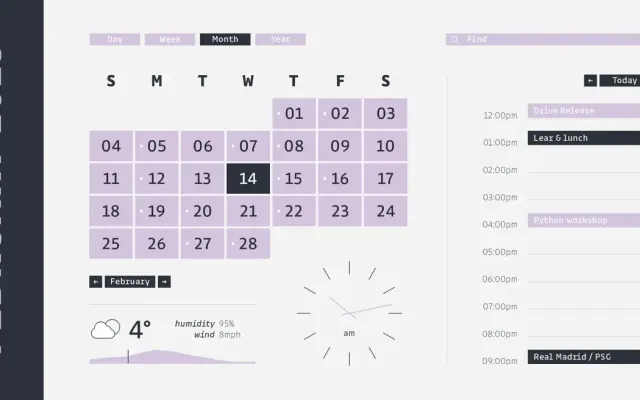
Drive Mono
The monospaced member of Black Foundry's Drive superfamily, engineered for business communication where fixed-width spacing and high legibility are both required.
Drive Mono shares the open counterforms and near-monolinear strokes of the Drive superfamily, making it unusually readable for a fixed-width face. Nine weights from Hairline to Extra Bold are available as static fonts or as a variable font with italic, covering both text and display needs. It sits alongside Drive and Drive Prop as a coordinated system for print and digital environments where consistency across proportional and monospaced settings matters.
Drive Mono is the monospaced variant within the Drive humanist sans superfamily, sharing open counterforms and nearly monolinear strokes with its proportional sibling while maintaining fixed-width spacing.